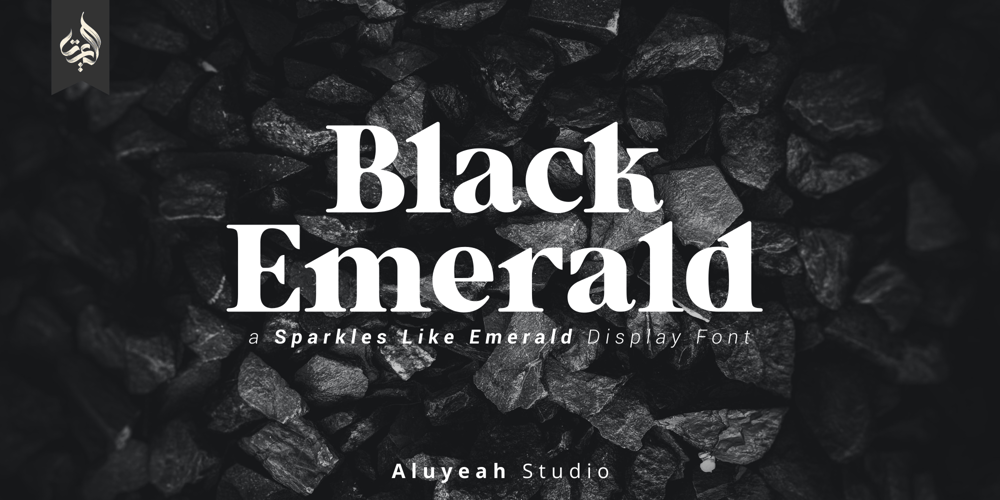
Al Black Emerald Font Family was designed by Linggar Sundoro and published by Aluyeah Studio. Al Black Emerald contains 2 styles and family package options. Black Emerald, a Sparkles Like Emerald Display FontComing to you with stunning regular and outline style, sparkles like emerald to create a perfectly fashionable, beautiful, fancy, and elegant design. Features:Multilingual support (15 languages)PUA EncodedThanks for checking out my font. I really hope you enjoy using it!If you have any questions I’d be more than happy to answer them, just send me a message!